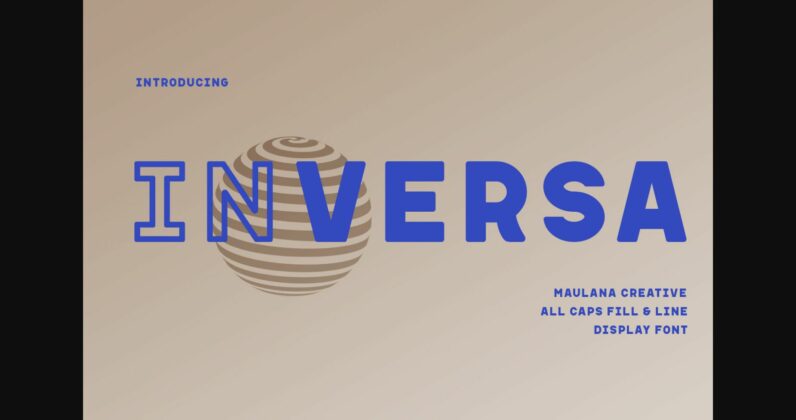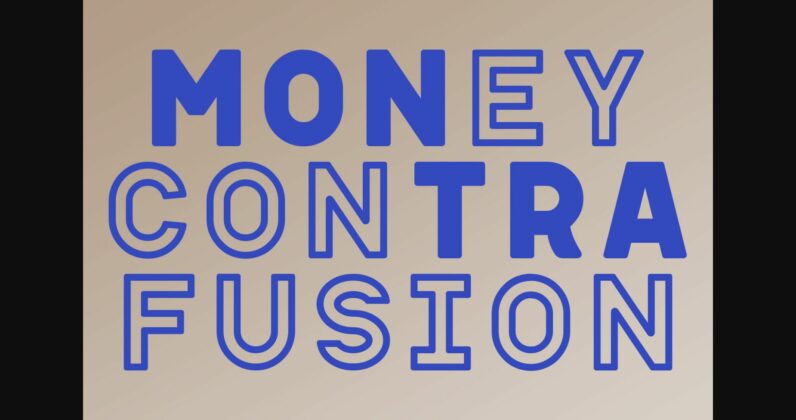
About Inversa Font
This stylish typeface features bold, chunky letters with a distinct 70s-inspired design. Its clean lines and geometric shapes make it perfect for eye-catching headlines or stylish branding. Give your designs a touch of retro cool with Inversa.